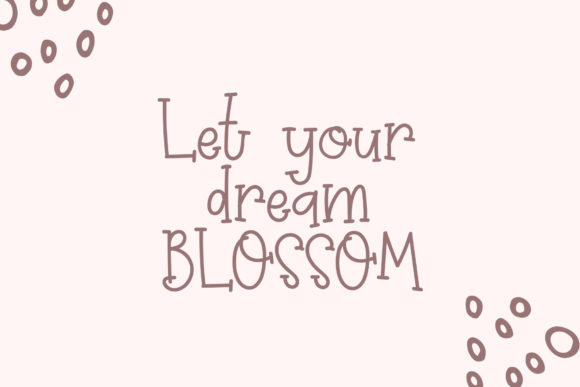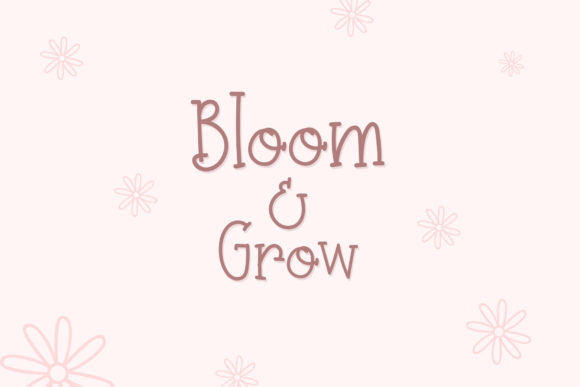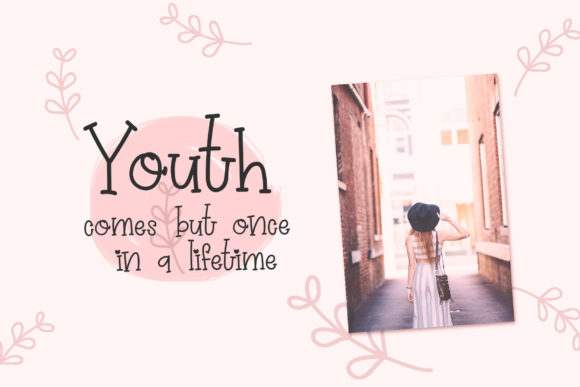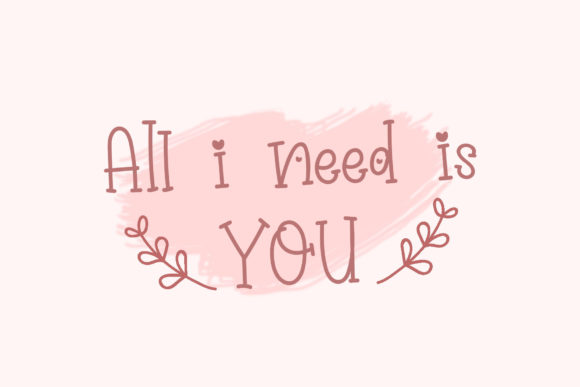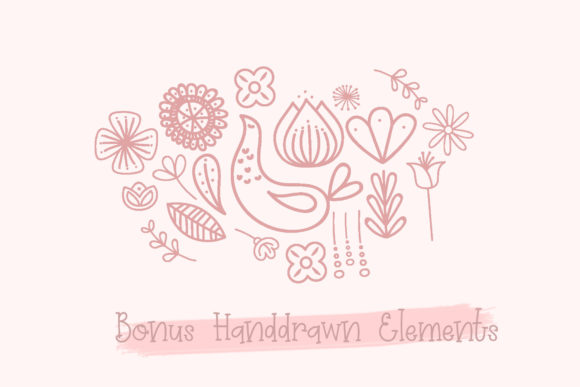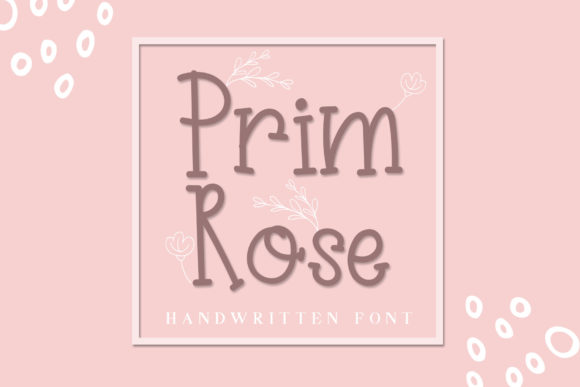
Prim Rose
Prim Rose: A Lovely Handwritten Slab Serif Font
Prim Rose is a charming slab serif font that combines the structure of traditional slabs with a delightful handwritten style. This unique typeface offers designers a tool for creating typography that feels both personal and natural, perfect for a wide range of design projects that require a touch of warmth and authenticity.
Key Features of Prim Rose
• Handwritten Style: Features a lovely, cute handwritten aesthetic
• Natural Feel: Adds an organic, authentic touch to designs
• Versatile Application: Suitable for various personal and creative projects
• Bonus Elements: Includes hand-drawn elements for crafting projects
Ideal Uses for Prim Rose
Prim Rose’s unique characteristics make it particularly well-suited for:
• Love letters and personal correspondence
• Greeting cards and invitations
• Cute and whimsical design projects
• Craft and DIY projects
• Social media graphics and digital content
Comparison with Other Slab Serif Fonts
While Prim Rose shares the slab serif structure with fonts like Tecnica Slab Family, its handwritten style sets it apart. Unlike more traditional slab serifs such as Osgood Slab, Prim Rose offers a more personal and organic approach to typography.
When incorporating Prim Rose into your designs, consider the following tips:
• Use for headlines or short blocks of text to showcase its unique handwritten character
• Pair with simpler sans-serif fonts for body text to create contrast
• Experiment with the included hand-drawn elements to enhance your designs
• Consider using it in projects where you want to convey a personal, warm, or natural feel
Prim Rose is an excellent choice for designers looking to add a touch of handwritten charm to their work while maintaining the structure of a slab serif. Its lovely, cute aesthetic makes it stand out in the world of typography. Whether you’re creating personal correspondence, designing greeting cards, or developing branding for craft-related projects, Prim Rose offers the perfect blend of personality and readability.
Explore how Prim Rose can bring a natural, handwritten feel to your design projects. From love letters to DIY crafts, this font provides the tools to create impactful and memorable typography that stands out with its unique charm.